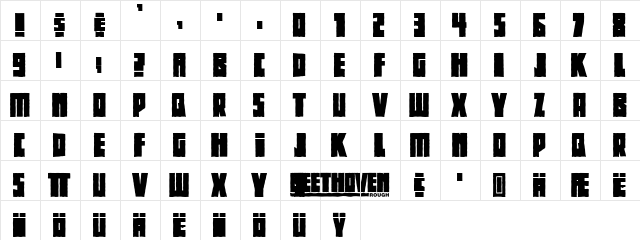
BeethovenRough Regular Font Preview
BeethovenRough Regular
Design Context for BeethovenRough Typeface
BeethovenRough embraces imperfection — its rough, textured character adds raw authenticity to designs that want to feel lived-in and unconventional.
Suited to punk-influenced zines, underground music branding, streetwear, and raw, anti-corporate design.
Pro Tip: Pair BeethovenRough with intentionally raw or lo-fi design elements. Fighting against it with overly polished surroundings will undermine its personality.